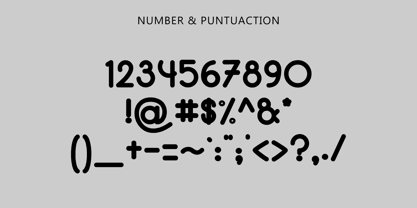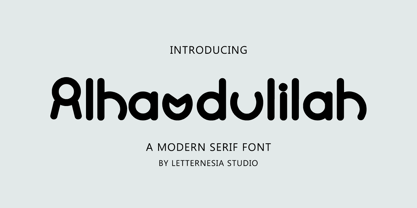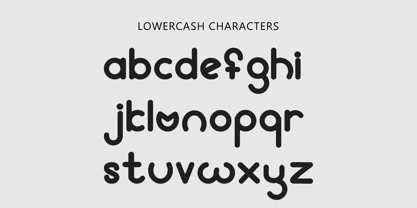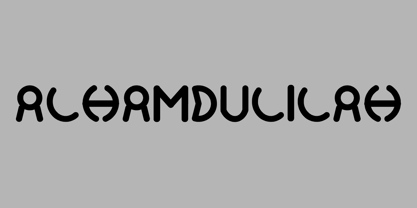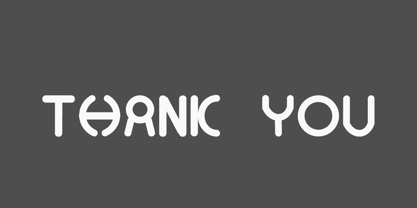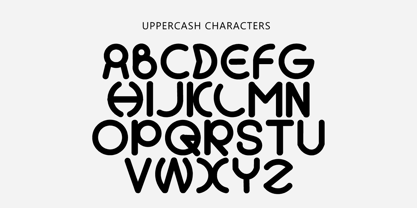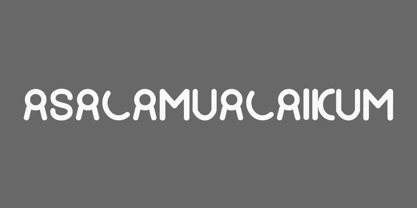
Alhamdulilah
by Letternesia studio
The Alhamdulilah Font Family was designed by Ta Siyo and published by Letternesia studio. Alhamdulilah contains 1 styles. More about this family
Alhamdulilah is a font inspired by the beauty of Arabic script and the elegance of Islamic calligraphy. Designed with soft lines and graceful curves, this font brings a spiritual and refined touch to every character. It’s perfect for Islamic-themed designs such as greeting cards, invitations, religious quotes, and Middle Eastern-inspired branding.
This font blends classic aesthetics with a modern twist, making it versatile for both traditional and contemporary design needs. With artistic and meaningful letterforms, Alhamdulilah expresses a message of gratitude through captivating typography.
Designers: Ta Siyo
Foundry: Letternesia studio